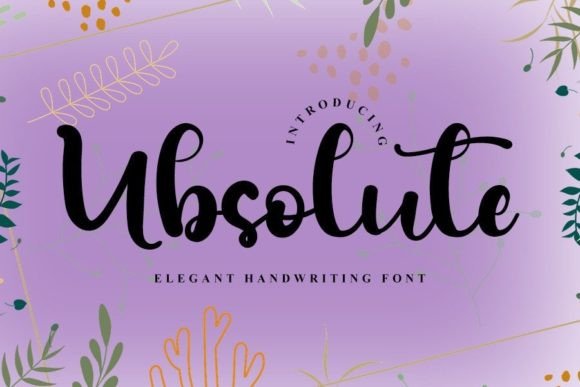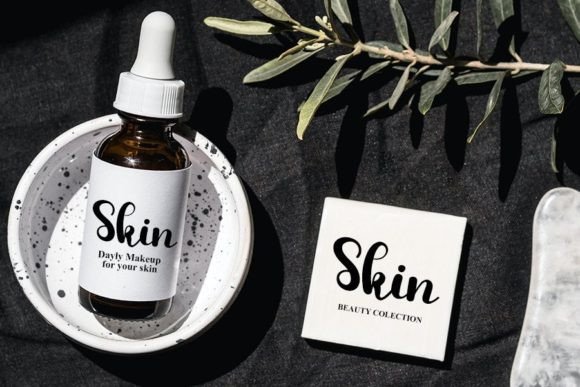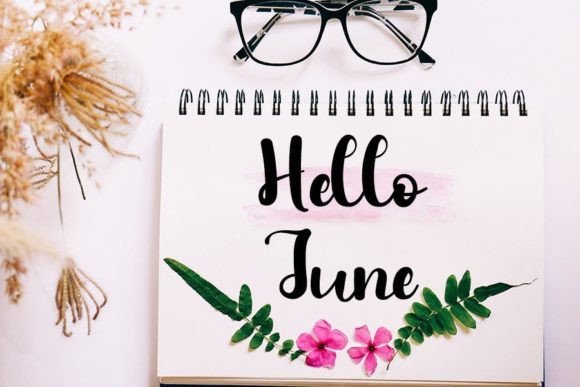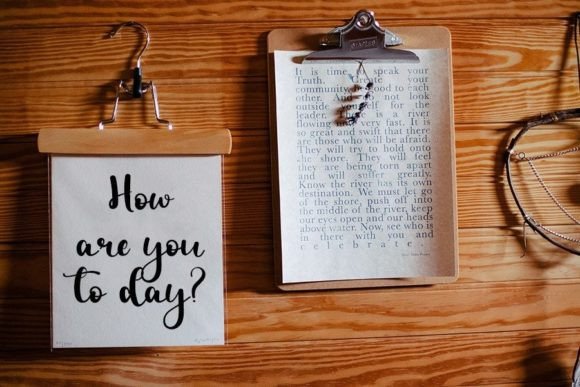
About Ubsolute Font
**Ubsolute** is a font that seamlessly combines neatness with beauty, creating a design that is both refined and visually appealing. Its handwritten style is characterized by an elegant touch, making it an ideal choice for a wide range of creative projects. Whether you’re working on invitations, branding, social media posts, quotes, or any other design, **Ubsolute** adds a touch of sophistication and charm, making your projects truly stand out.
One of the key features of **Ubsolute** is its distinct and timeless style. The font’s clean lines and graceful curves give it a sense of sophistication, making it versatile for various applications. Its elegant and handwritten quality adds a personal touch to your designs, making them warm and inviting.
The effortless flow of letters and the seamless connection between characters create a harmonious composition, enhancing the overall aesthetics of your projects. **Ubsolute** exudes a sense of effortlessness, making it ideal for conveying a message of simplicity, elegance, and sophistication in your designs.
Beyond being just a font, **Ubsolute** is an experience. It evokes a sense of timeless beauty and refined elegance, making it perfect for projects that aim to create a lasting impression. Whether used for formal invitations, inspirational quotes, sophisticated branding, or any other creative endeavor, **Ubsolute** elevates your designs, transforming them into spectacular and visually captivating creations.
By incorporating **Ubsolute** into your favorite projects, you’re not just choosing a font; you’re enhancing them with an exquisite touch of elegance. Embrace the distinct and timeless style of **Ubsolute** to create designs that are not only visually stunning but also leave a lasting impact on your audience.